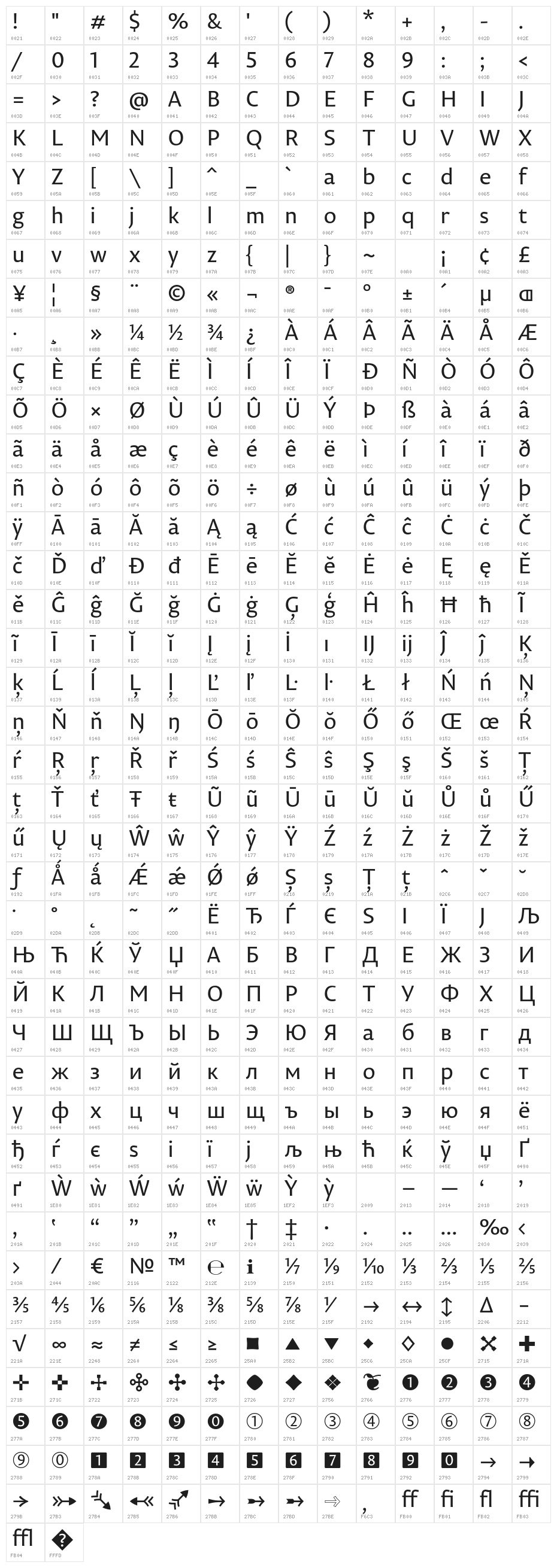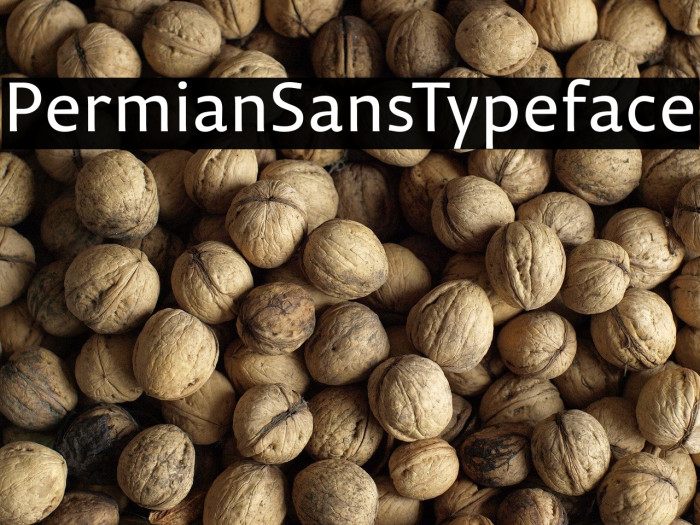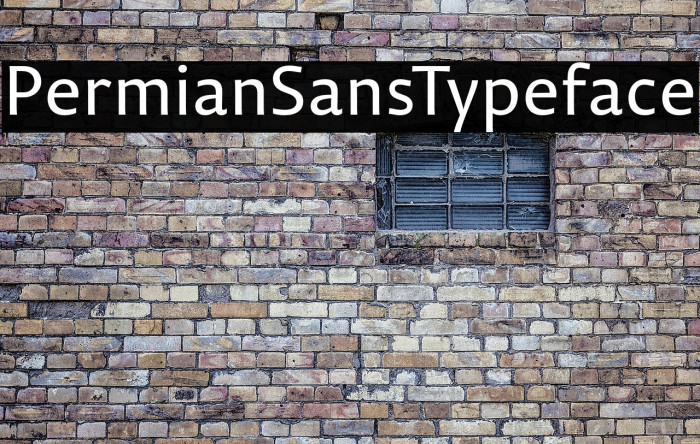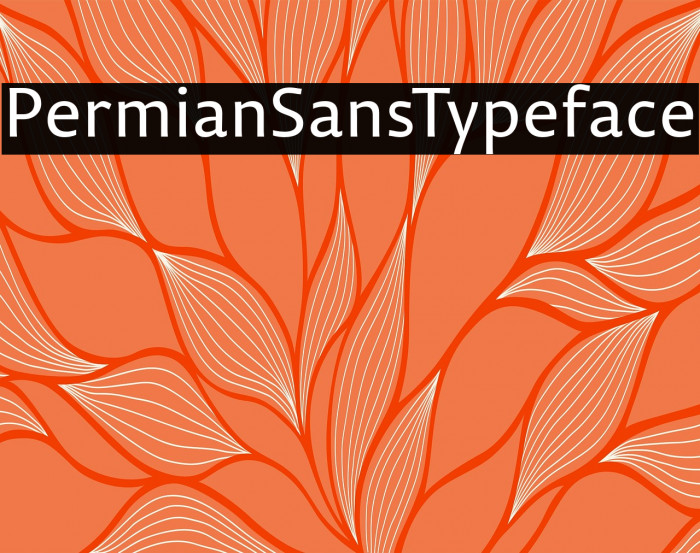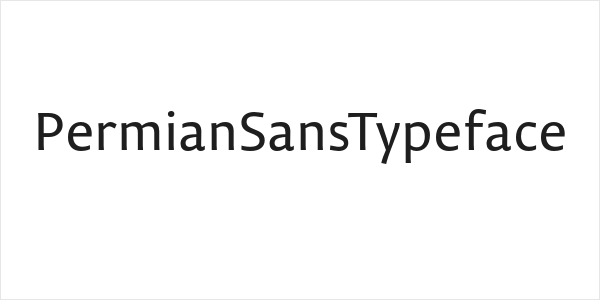
PermianSansTypeface Font
PermianSansTypeface Description
This typeface features a clean and modern sans-serif design, characterized by its simplicity and readability. The letters are well-proportioned with a consistent stroke width, giving it a balanced and harmonious appearance. The uppercase letters are bold and assertive, while the lowercase letters maintain a friendly and approachable feel. The numerals are clear and distinct, making them suitable for a variety of applications. Special characters are included, enhancing its versatility for different uses. Overall, this font exudes a contemporary and professional vibe, making it ideal for both digital and print media.
| Proposed Projects | Ideal for corporate branding, web design, advertising, and editorial layouts. |